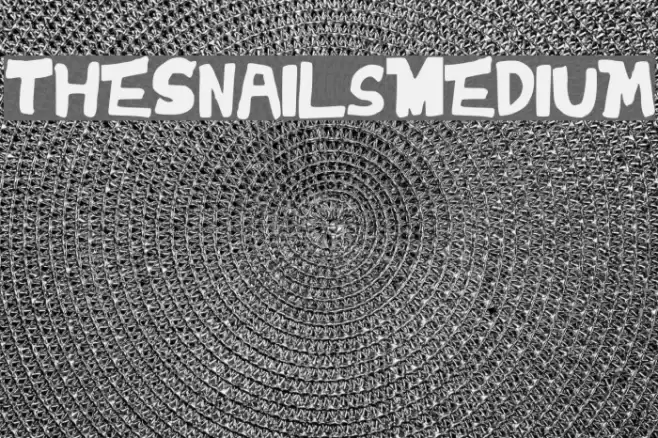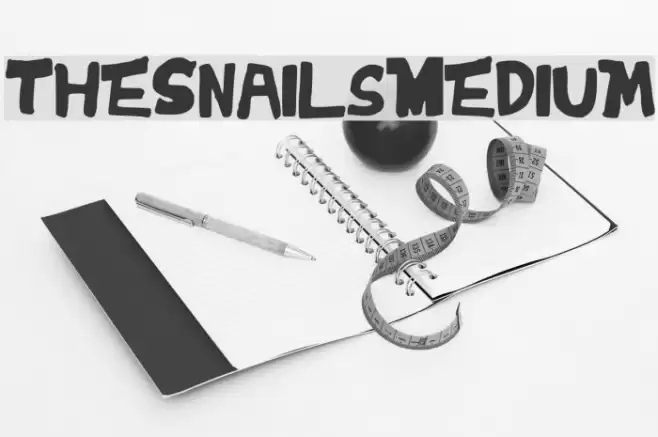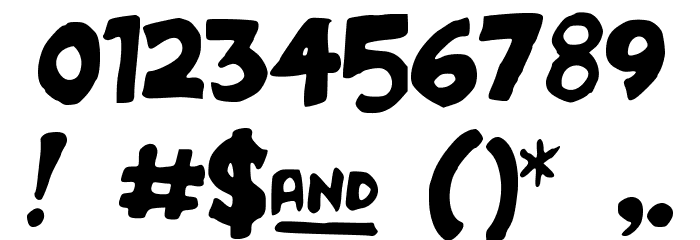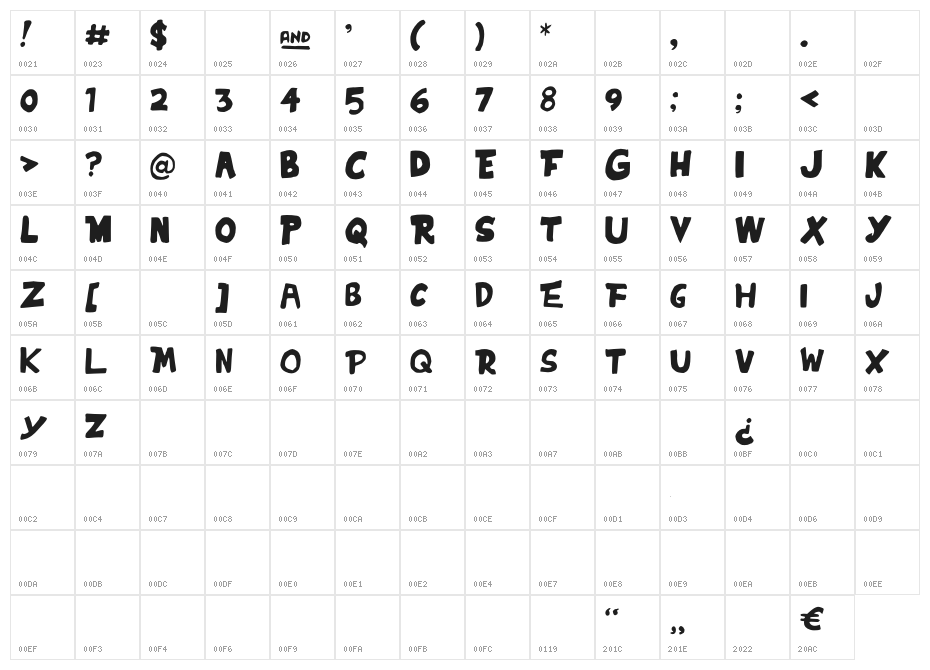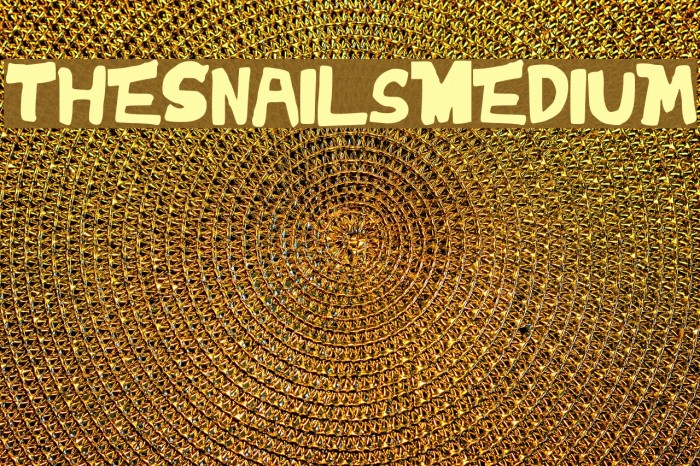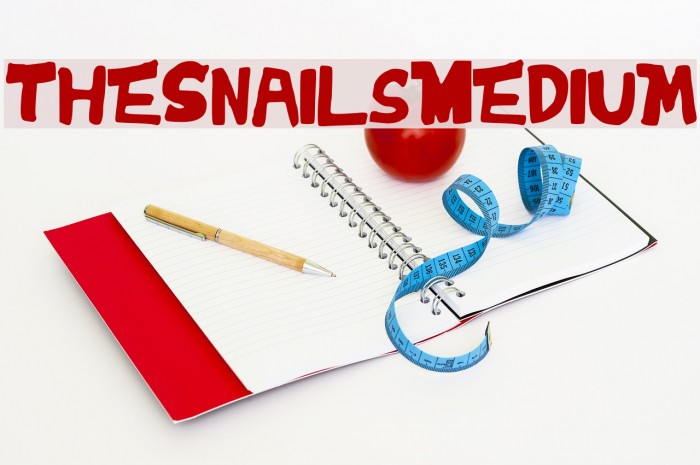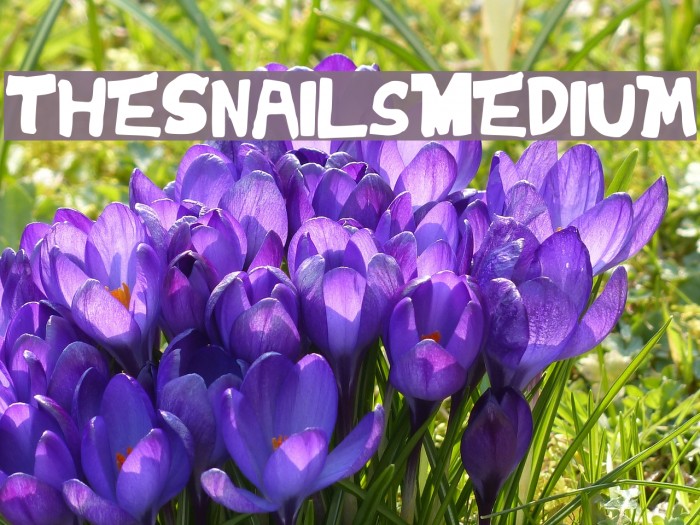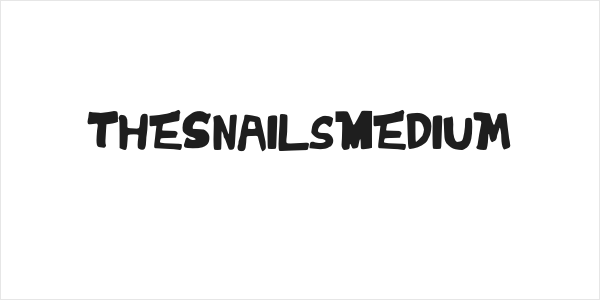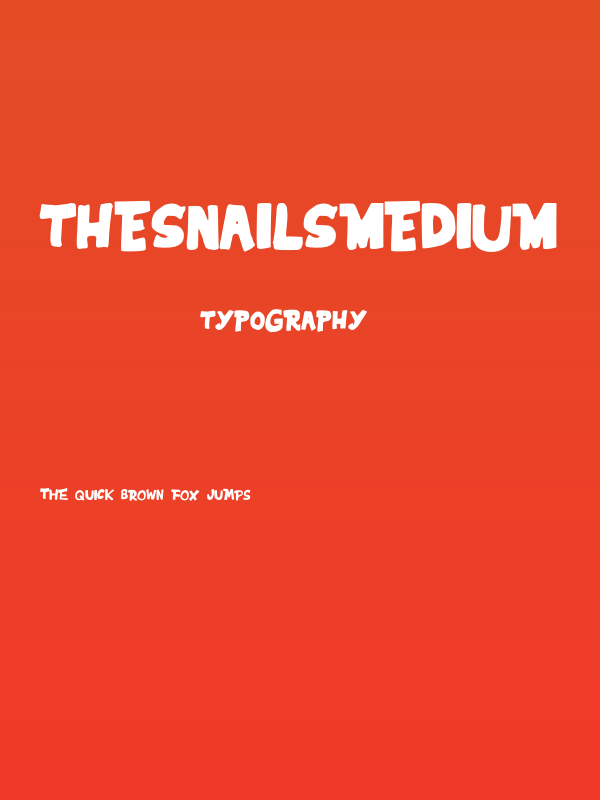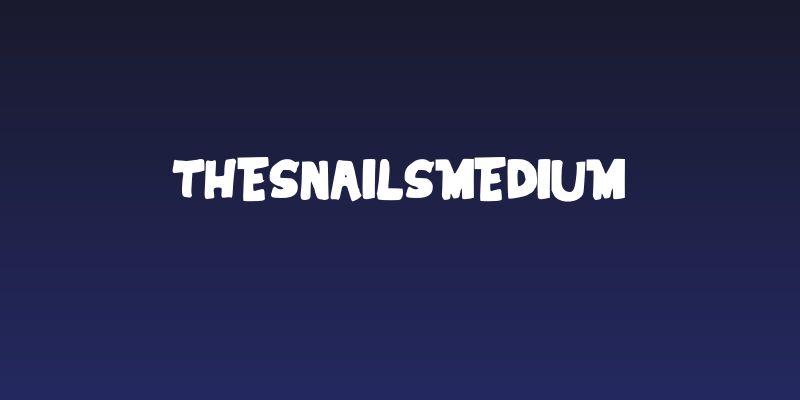
TheSnails-Medium Font
TheSnails-Medium Description
This font features a playful and bold style with a hand-drawn appearance. The characters are thick and rounded, giving a friendly and approachable feel. The uppercase and lowercase letters maintain a consistent weight, while the numbers and special characters follow the same whimsical design. The strokes are uneven, adding to the casual and informal look, making it suitable for creative and fun projects. Its unique style stands out, making it ideal for attention-grabbing headlines or artistic designs.
A playful, bold, hand-drawn font with a friendly and whimsical style from Cartoon fonts.
- Proposed Projects: Ideal for children's books, comic strips, playful branding, and creative posters.
- Overall Style: Playful, Artistic